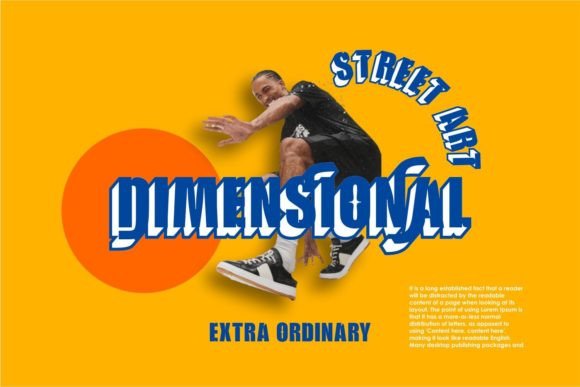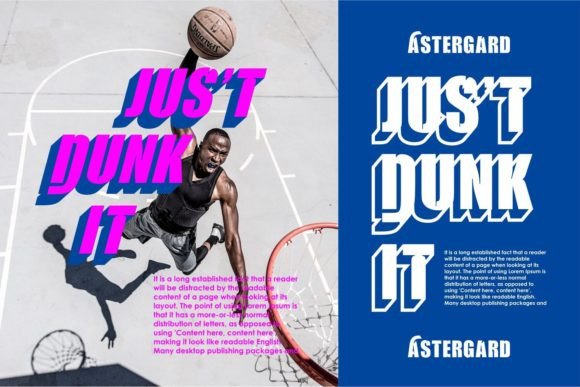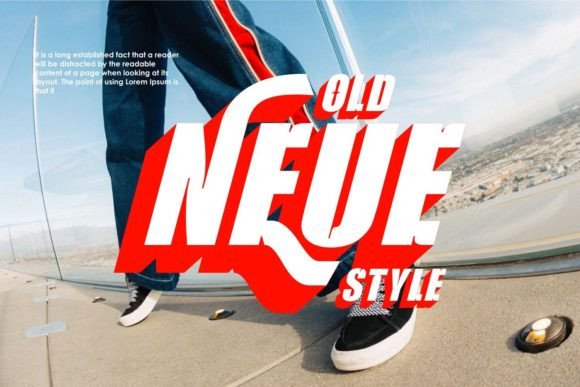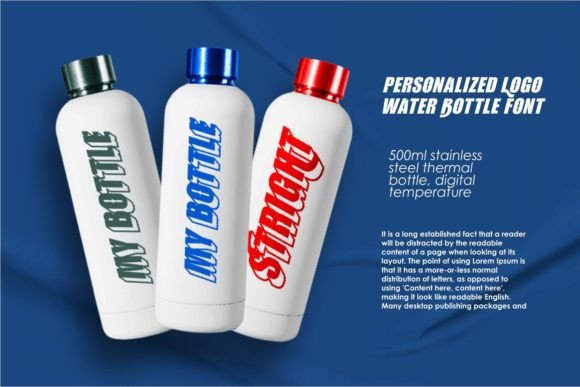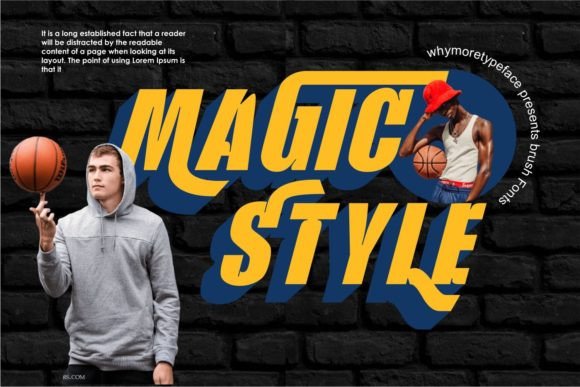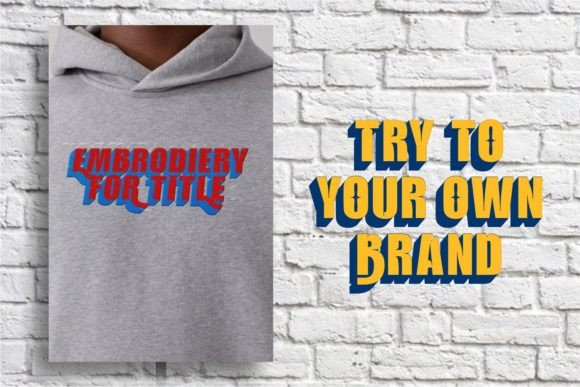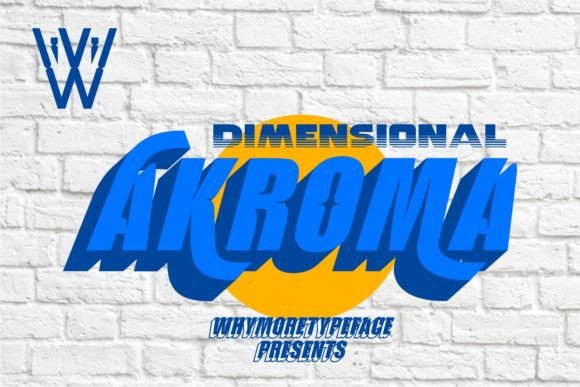
The Ultimate Guide to Akroma Font: A Display Font for the Modern Designer
I’ll never forget the time I was working on a project for a sports brand, and I was struggling to find the perfect font to capture their energetic and dynamic vibe. The client wanted something that would stand out, something that would scream “championship-winning” team. That’s when I stumbled upon Akroma Font, a display font that combines athleticism with retro, neon, 80s, and semi-modern elements. It was love at first sight! 💥
Akroma Font: A Personal Review
What I Love About Akroma Font ✨
- 💥 Unique blend of styles: Akroma Font seamlessly merges athletic, retro, neon, 80s, and semi-modern elements to create a truly one-of-a-kind display font.
- ✅ Thickness and versatility: The font’s thickness makes it perfect for displaying sports products, and its versatility allows it to be used for a wide range of design projects.
- 🎉 Attention-grabbing: Akroma Font is designed to turn heads, making it perfect for titles, headings, and any text that needs to make a statement.
- 🤔 Legibility at small sizes: While Akroma Font is stunning at larger sizes, it can become a bit tricky to read at smaller sizes. Be sure to test it thoroughly before using it for body text.
- ⚠️ Limited use for body text: Due to its bold and decorative nature, Akroma Font is best suited for display text rather than body text.
- Explore stylistic alternates and swashes to add more flair to your design.
The Designer Inspiration Behind Akroma Font
Akroma Font was inspired by the vibrant and dynamic world of sports. The designer, a huge sports fan, wanted to create a font that captured the energy and excitement of athletic competition. With its bold and neon-like appearance, Akroma Font is sure to bring a touch of championship spirit to any design project.
Q: What type of projects is Akroma Font best suited for?
A: Akroma Font is perfect for sports-related projects, such as logos, branding, and advertising. It’s also great for any design project that requires a bold and attention-grabbing font.
Q: Can I use Akroma Font for body text?
A: While Akroma Font is stunning as a display font, it’s not ideal for body text due to its bold and decorative nature. However, you can experiment with it for short paragraphs or quotes.
Q: Is Akroma Font available in different weights or styles?
A: Yes, Akroma Font comes in various weights and styles, allowing you to experiment with different looks and feels.